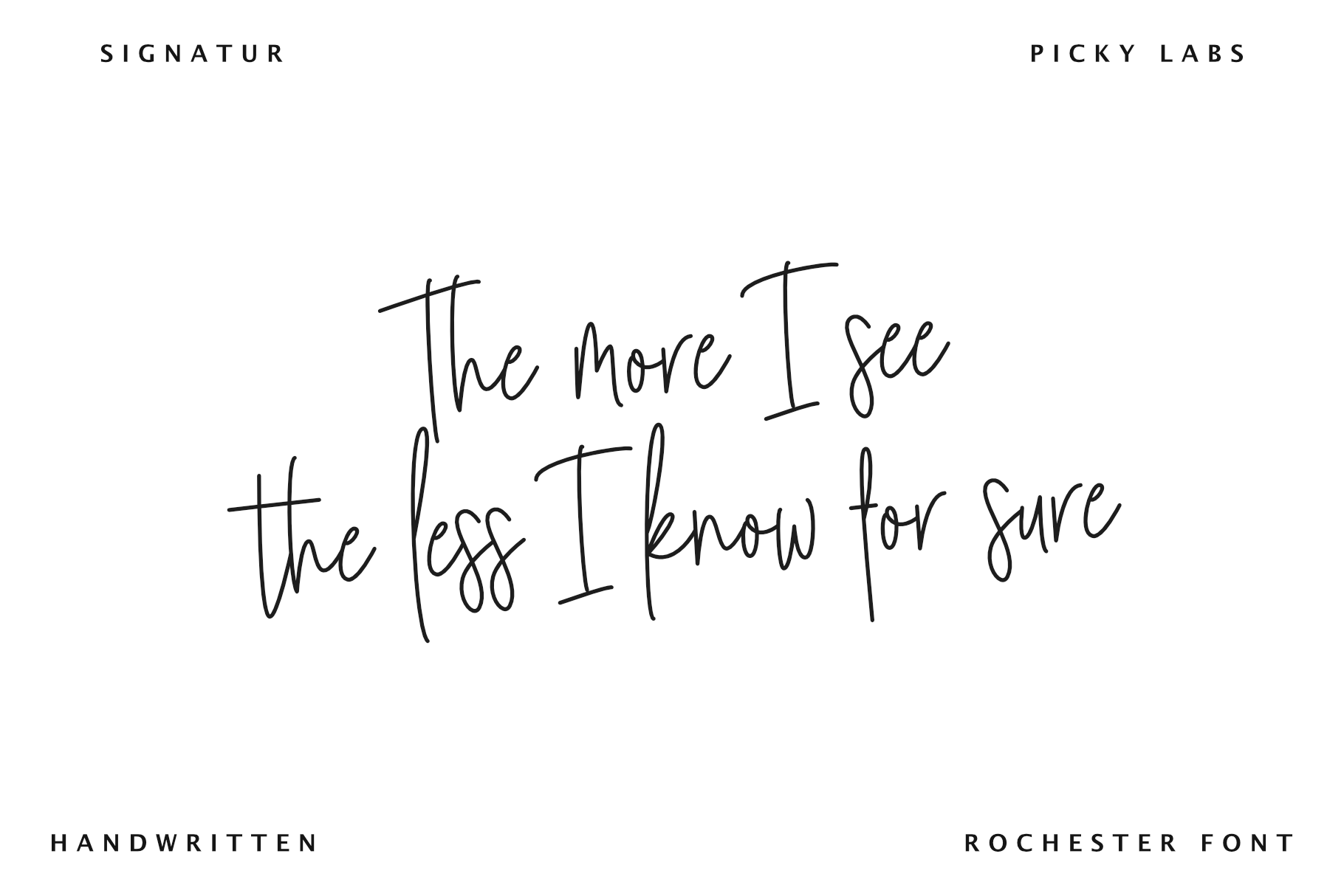
Rochester Signature Script Font
This font is free for commercial, a sophisticated signature-style script with impeccably refined curves and silky smooth edges.
Rochester Signature is a great choice for branding, business cards, posters, product design, blog posters, and many other design projects.